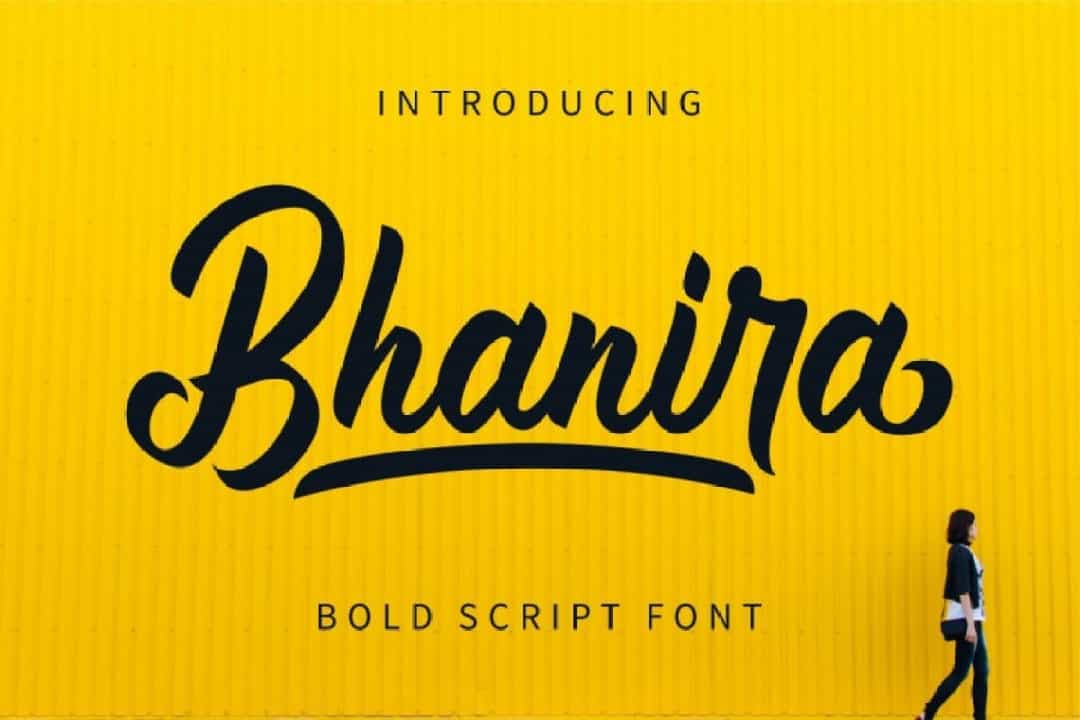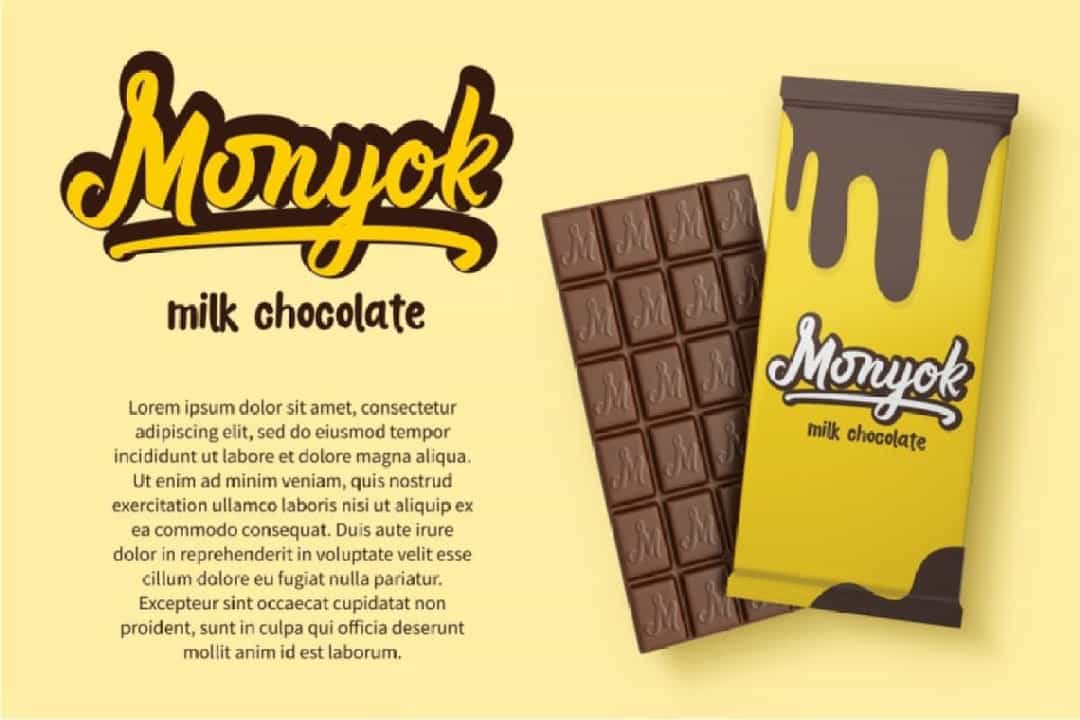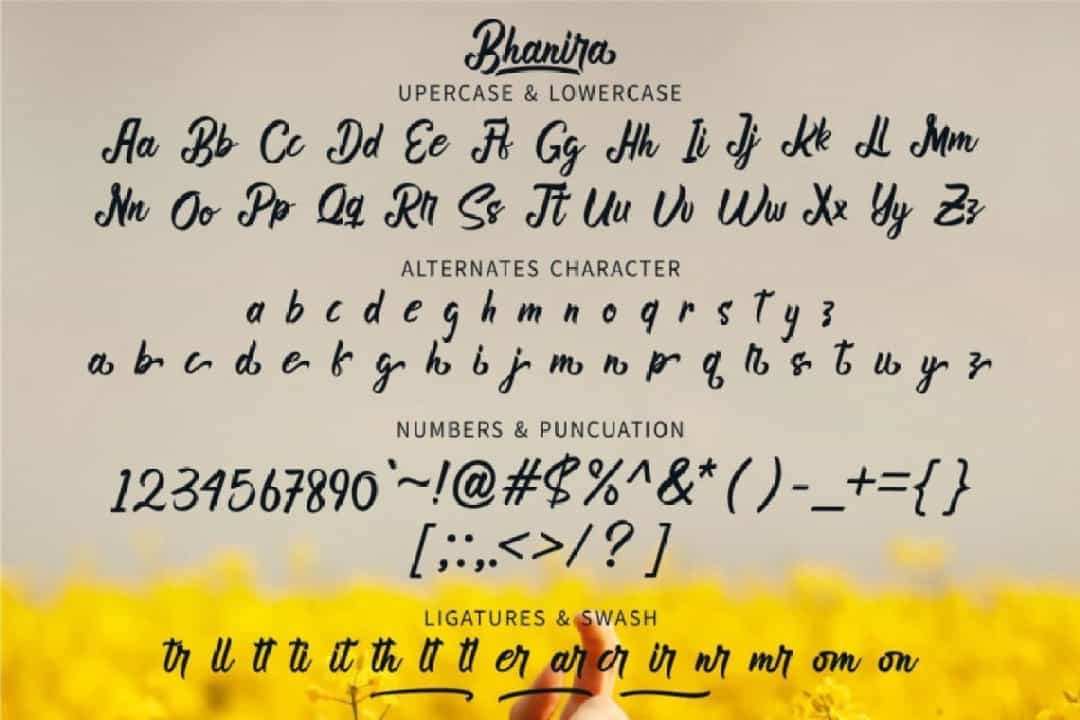
Bhanira can be described as a classy turn of the century font with artistic flair that is perfect for use on invitations, thank you cards, greeting cards, logos, and business cards and can even be used on photos. Also, it is PUA encoded so all the characters and washes are easy to find!